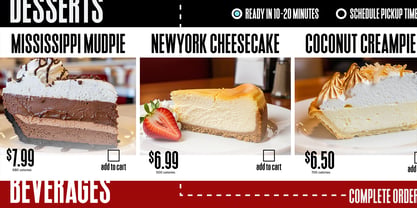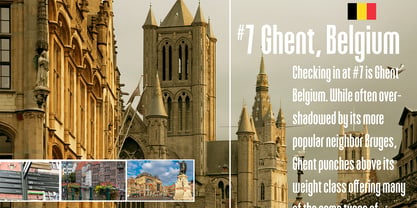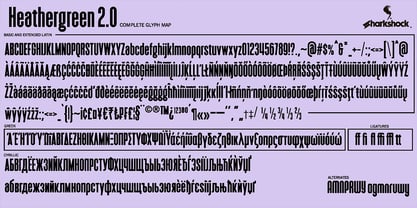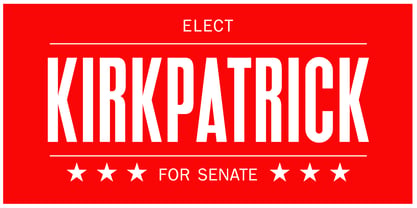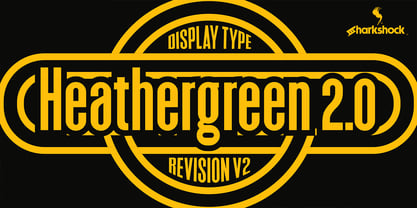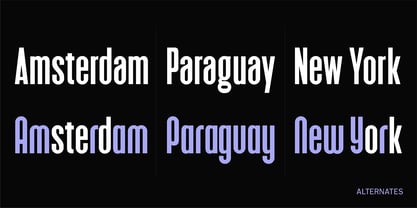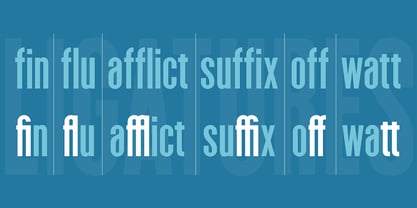
Heathergreen 2.0
Die Schriftfamilie Heathergreen 2.0 wurde von Dennis Ludlow entworfen und von Sharkshock veröffentlicht. Heathergreen 2.0 enthält 1 Stile. Mehr über diese Familie
Heathergreen 2.0 is a tightly spaced display sans that returns for a facelift. A close relative of the Deutschlander family, the 2.0 update was designed to squeeze in text where space was limited. Many letters were completely redrawn and the overall height was reduced by about 20%. Spacing was completely redone for a smoother flow. Clean and semi-condensed, it offers a minimalistic look and high legibility. Use it for movie credits, a book title, or a poster. Heathergreen 2.0 is equipped with Basic and Extended Latin, diacritics, Cyrillic, Greek, punctuation, alternates, fractions, ligatures, and kerning. Please check the glyph maps for all supported characters.